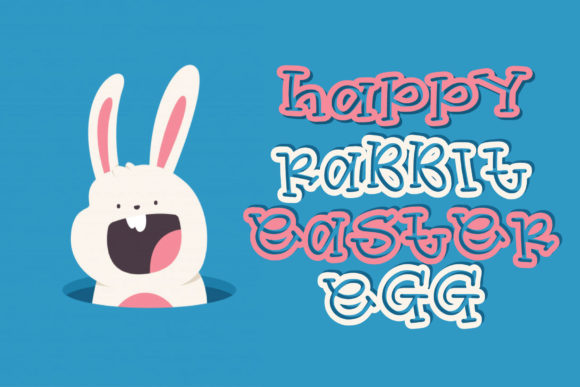
Introducing Happy Rabbit Easter Egg Font, a whimsical typeface that sparks joy and creativity!
Embark on a whimsical adventure with Happy Rabbit Easter Egg Font. Its playful and authentic charm is like a warm hug for your designs, making them burst with personality. Each letter dances with a gentle bounce, inviting you to let loose and embrace your imagination.
This enchanting font is a perfect fit for any project seeking a touch of whimsy and fun. Whether you're creating cheerful invitations for a children's party, designing eye-catching posters for school projects, or adding a playful touch to your social media posts, Happy Rabbit Easter Egg Font will bring a smile to your audience.
With its endearing character, this font transforms ordinary words into extraordinary expressions. Its playful curves and cheerful spirit make it the ideal choice for creating logos that exude warmth and approachability. Unleash your creativity and watch as your designs bloom with joy and laughter.